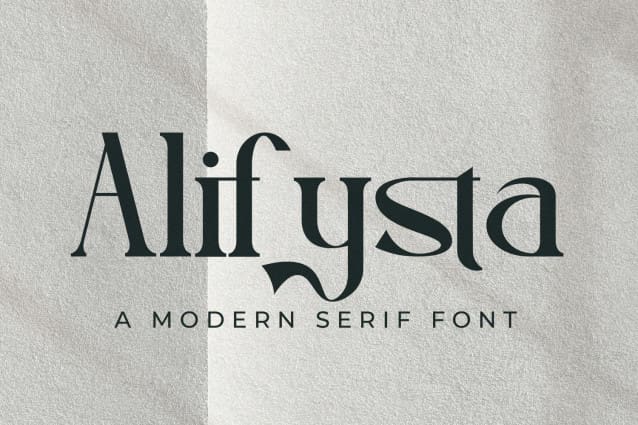
Alifysta Font
Alifysta Font – A Modern Serif Font, from Jeritype Studio, is a premium A Modern Serif font, perfect for any project requiring a distinctive, high-end touch.